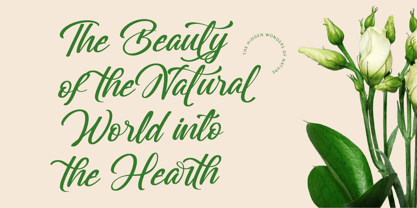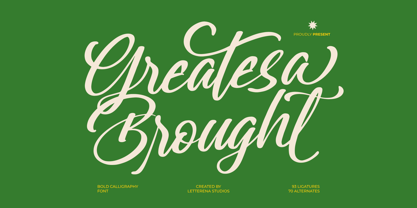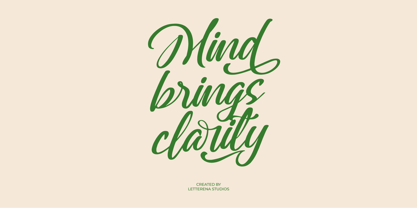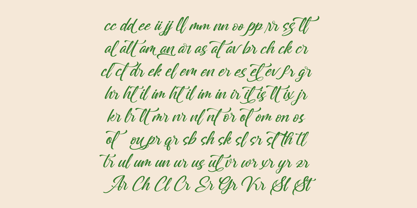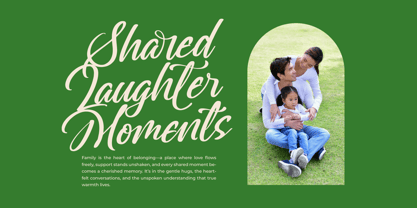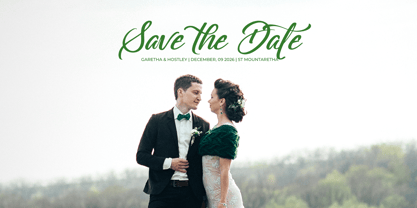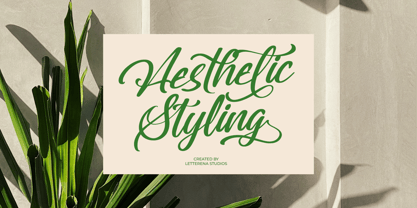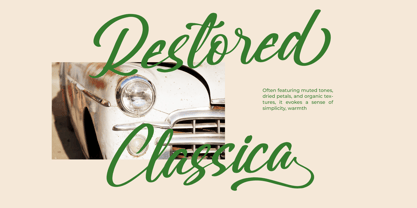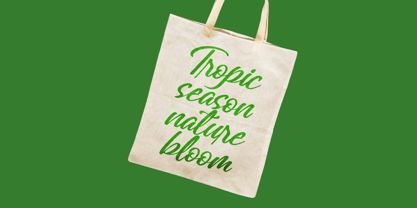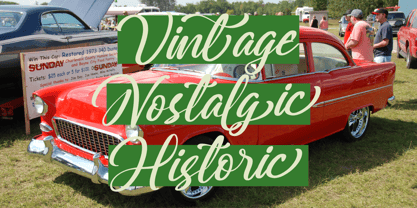
Greatesa Brought
The Greatesa Brought Font Family was designed by Heru Utama Putra and published by Letterena Studios. Greatesa Brought contains 2 styles and family package options. More about this family
Greatesa Brought – Bold Calligraphy Font , from Letterena, is a Luxury Script font, suitable for any projects such as: logos, branding projects, homeware designs, product packaging, mugs, quotes, posters, shopping bags, t-shirts, book covers, name card, invitation cards, greeting cards, label, photography, watermark, special events, and all your other luxury and beautiful projects that need a Luxury Script taste.